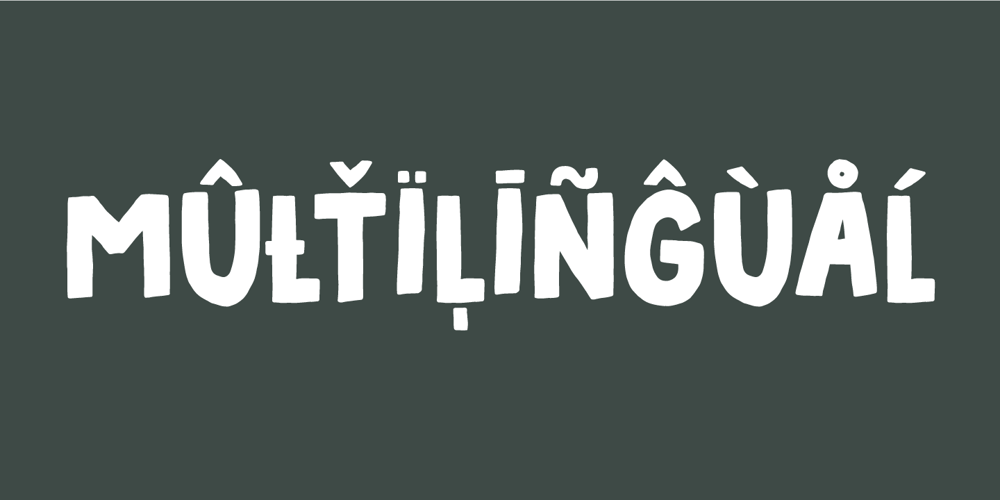
Random Thoughts
Random Thoughts font
Random Thoughts Font Family was designed by Jakob Fischer and published by PizzaDude.dk. Random Thoughts contains 1 styles and family package options. Random Thoughts is a selection of of quite simple handmade capital letters. They are legible, almost mono-lined, handmade and they are a bit jumpy – but never the less, they suit a headline that needs a catchy look very fine! I’ve included 4 different versions of each letter. One lowercase, one uppercase and two contextual alternates. These 4 different versions automatically cycle as you type, leaving your text quite random – but still very clear and legible! And, of course, there is multilingual support!